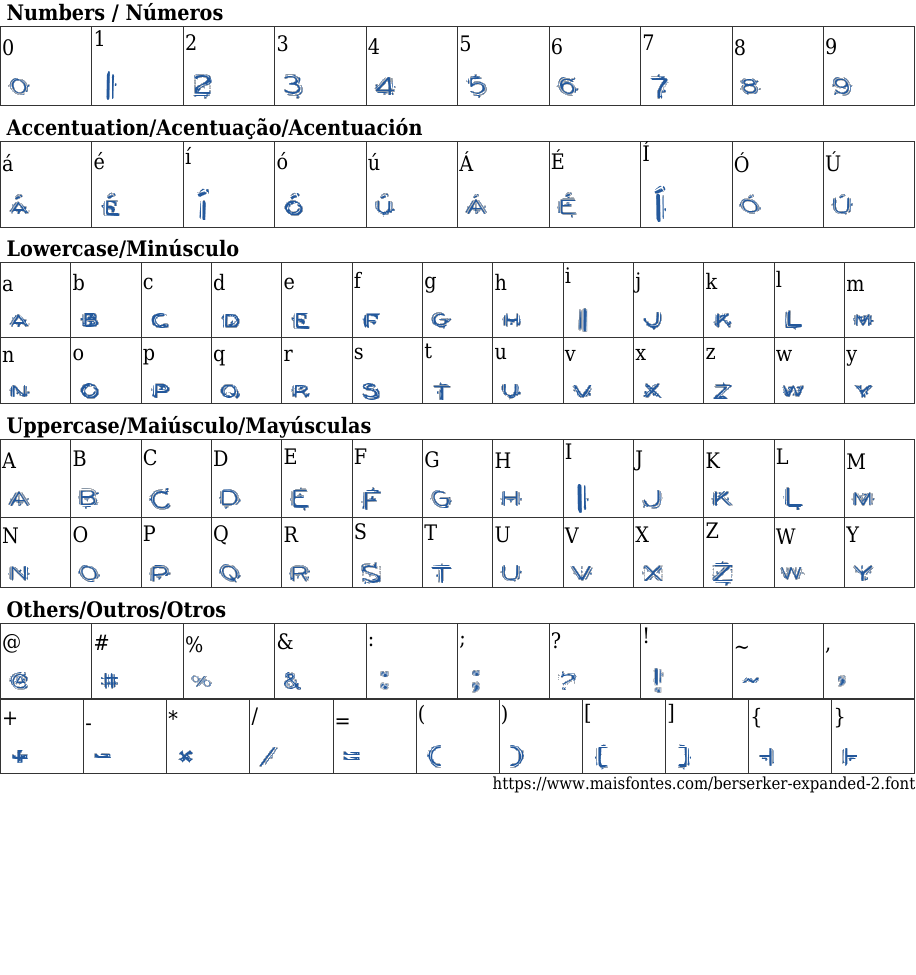
Berserker Font Free . Download free for desktop & webfont. Berserker font was recently updated on jun 30, 2023.
Web berserker font family : Web download free berserker font by iconian fonts. Web berserker font is a fancy, distorted font designed by iconian fonts. However, you need to contact the author for commercial use or for.
Berserker Font Free - Web berserker font is a fancy, distorted font designed by iconian fonts. It is decorative font and has 9 styles. Web download free berserker font by iconian fonts. Web download and install the berserker font by iconian fonts. Web be aware that the berserker font is free for personal knowledge and use only.
Berserker Font Free - Web download free berserker font by iconian fonts. Web download and install the berserker font by iconian fonts. Web berserker font is a fancy, distorted font designed by iconian fonts. Download free for desktop & webfont. Berserker font is free for personel and commercial usages.
Berserker Font Free - Web berserker font family : Web be aware that the berserker font is free for personal knowledge and use only. Web berserker font is a sketch font and was created on jun 20, 2008. It is decorative font and has 9 styles. Berserker font was recently updated on jun 30, 2023.
Berserker Font Free - Web berserker font is a fancy, distorted font designed by iconian fonts. Berserker font was recently updated on jun 30, 2023. Web download free berserker font by iconian fonts. The berserker font has been downloaded 3,450 times. It is decorative font and has 9 styles.
Berserker Font Free - Web berserker font | dafont.com english français español deutsch italiano português. 0 people have liked berserker font and given it a thumbs up. Since then, it has been downloaded 543 times and added to 32 collections. Web berserker font is a fancy, distorted font designed by iconian fonts. It is decorative font and has 9 styles.
Berserker Font Free - Web berserker font family : Web berserker font is a fancy, distorted font designed by iconian fonts. Berserker font is free for personel and commercial usages. The berserker font has been downloaded 3,450 times. Web download and install the berserker font by iconian fonts.
Berserker Font Free - Uploaded by carissa hill 𑁋 (9 styles) report a violation add to list. Berserker font was recently updated on jun 30, 2023. Web berserker font is a sketch font and was created on jun 20, 2008. Web berserker font is a fancy, distorted font designed by iconian fonts. Since then, it has been downloaded 543 times and added to 32.
Berserker Font Free - Web download and install the berserker font by iconian fonts. Web berserker font family : Truetype 210 glyphs 219 characters. 0 people have liked berserker font and given it a thumbs up. Web berserker font | dafont.com english français español deutsch italiano português.
Berserker Font Free - Web berserker font is a fancy, distorted font designed by iconian fonts. 0 people have liked berserker font and given it a thumbs up. Web download free berserker font by iconian fonts. The berserker font has been downloaded 3,450 times. Web berserker font is a sketch font and was created on jun 20, 2008.
Berserker Font Free - Berserker font is free for personel and commercial usages. Web be aware that the berserker font is free for personal knowledge and use only. Truetype 210 glyphs 219 characters. Download free for desktop & webfont. Web berserker font family :